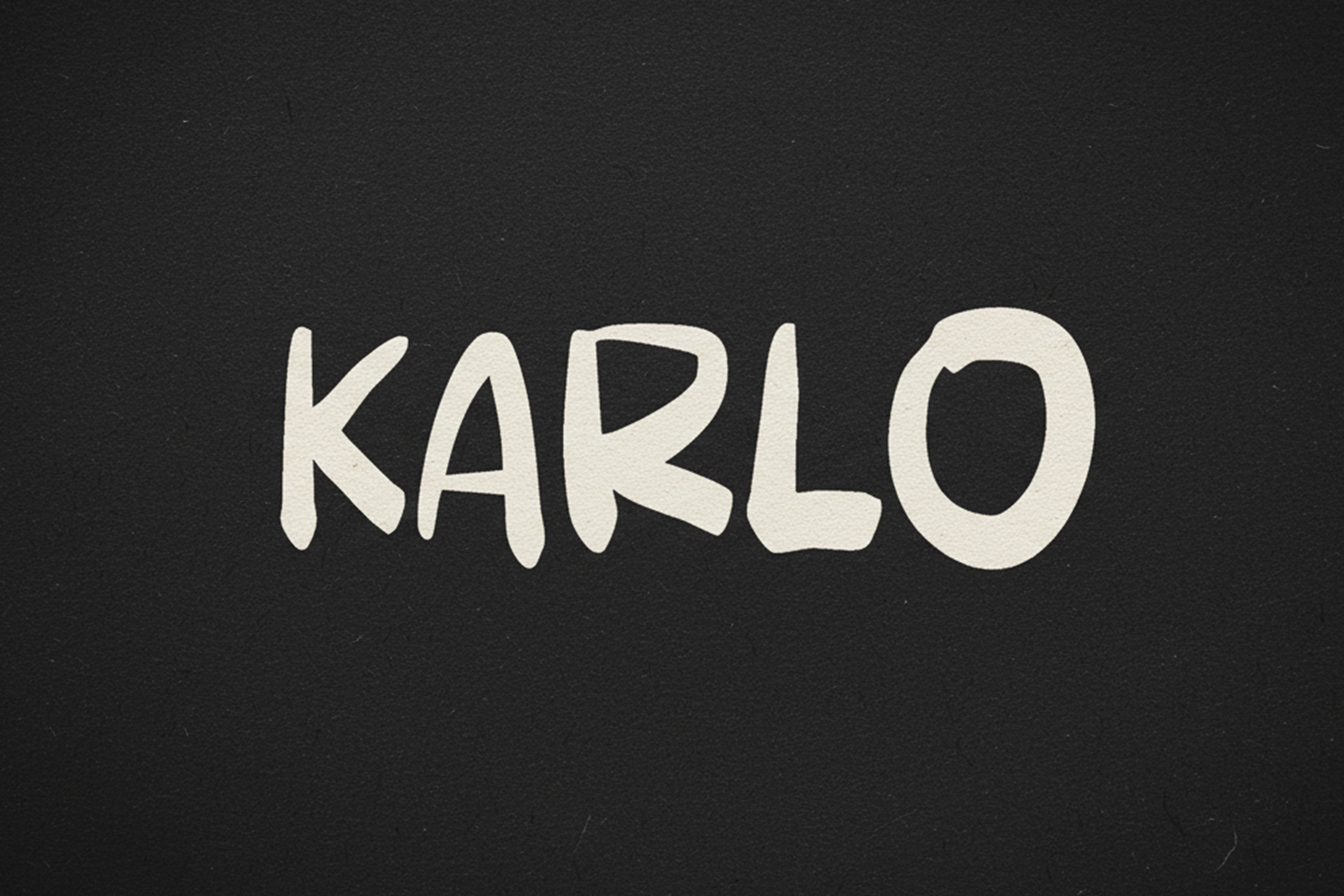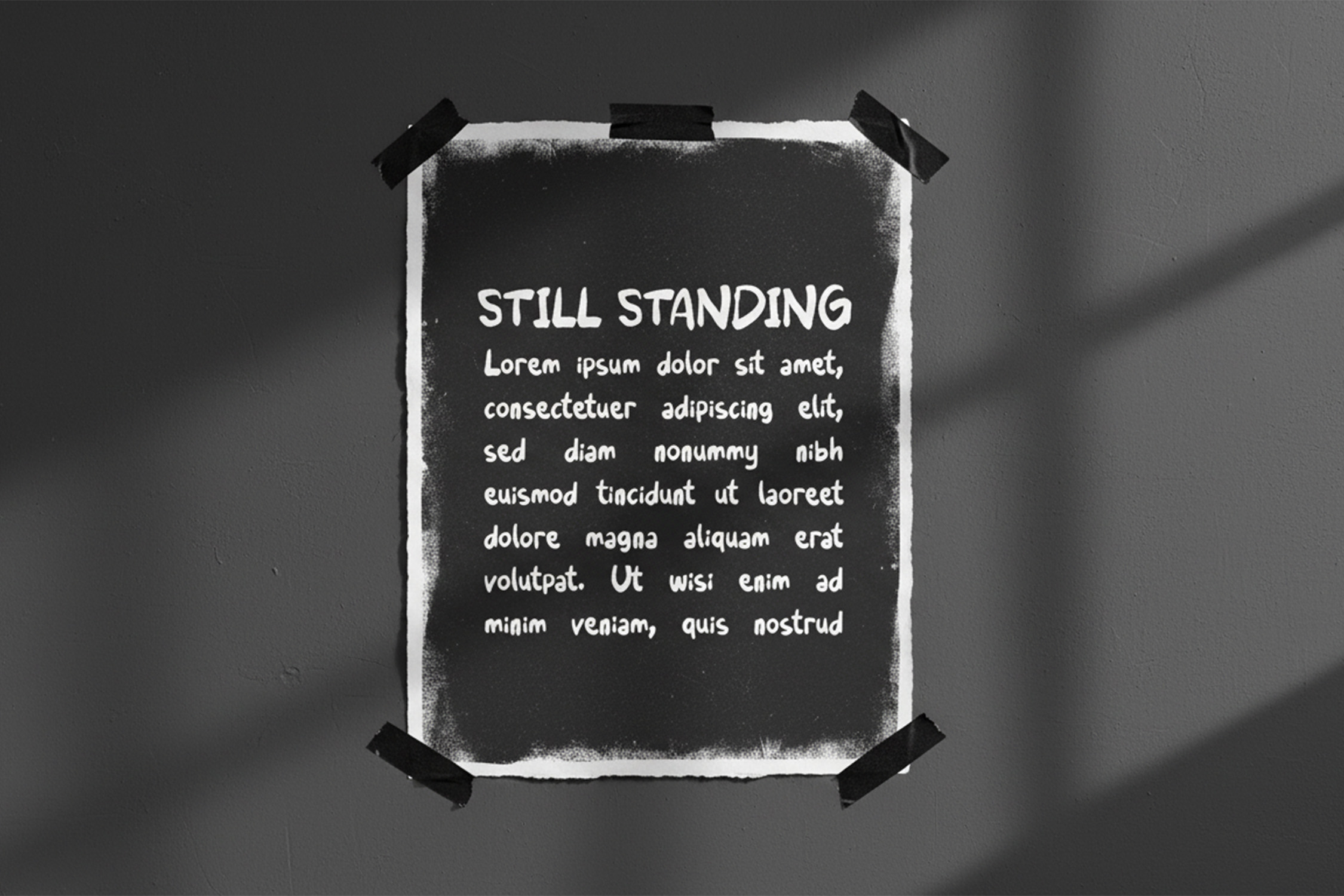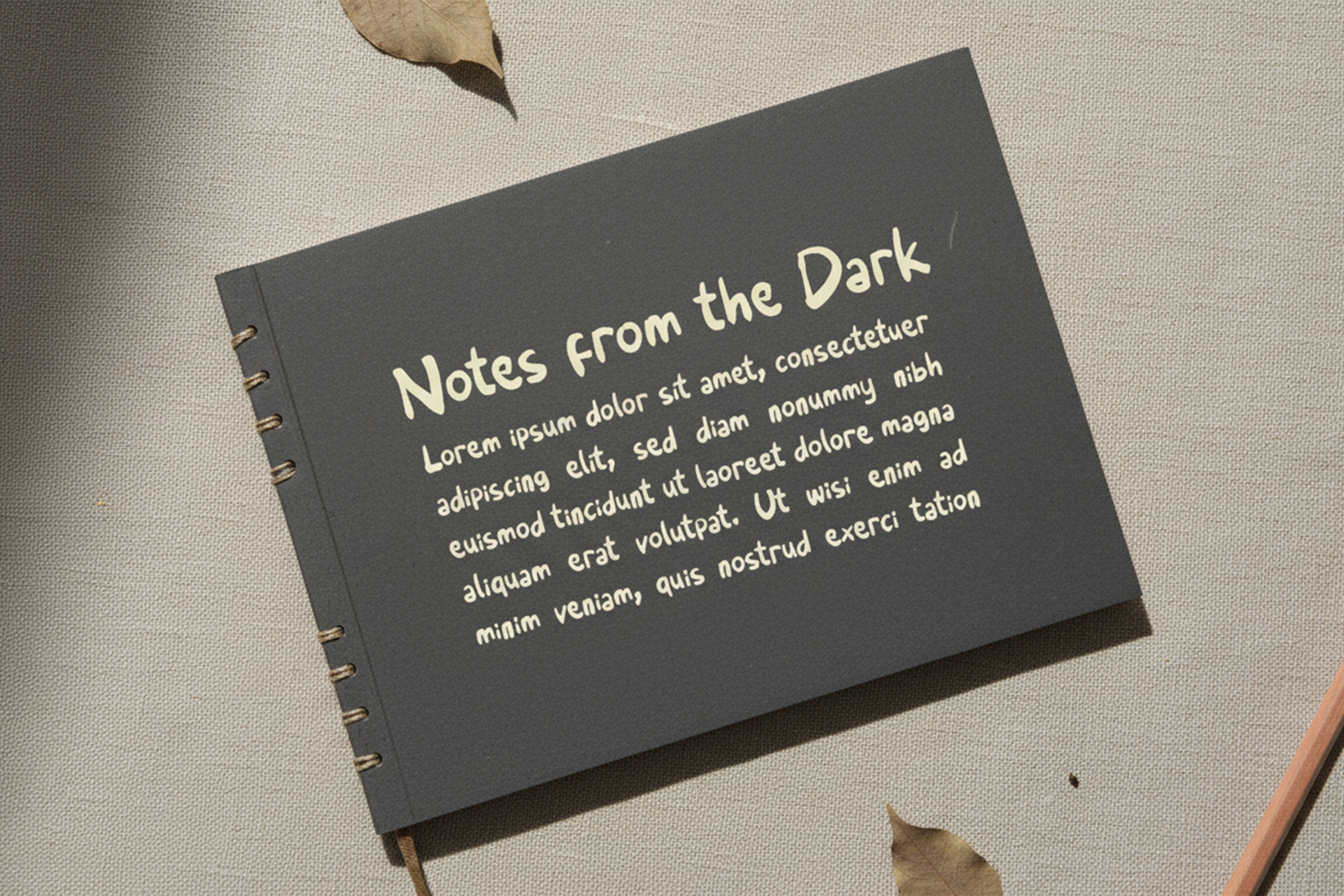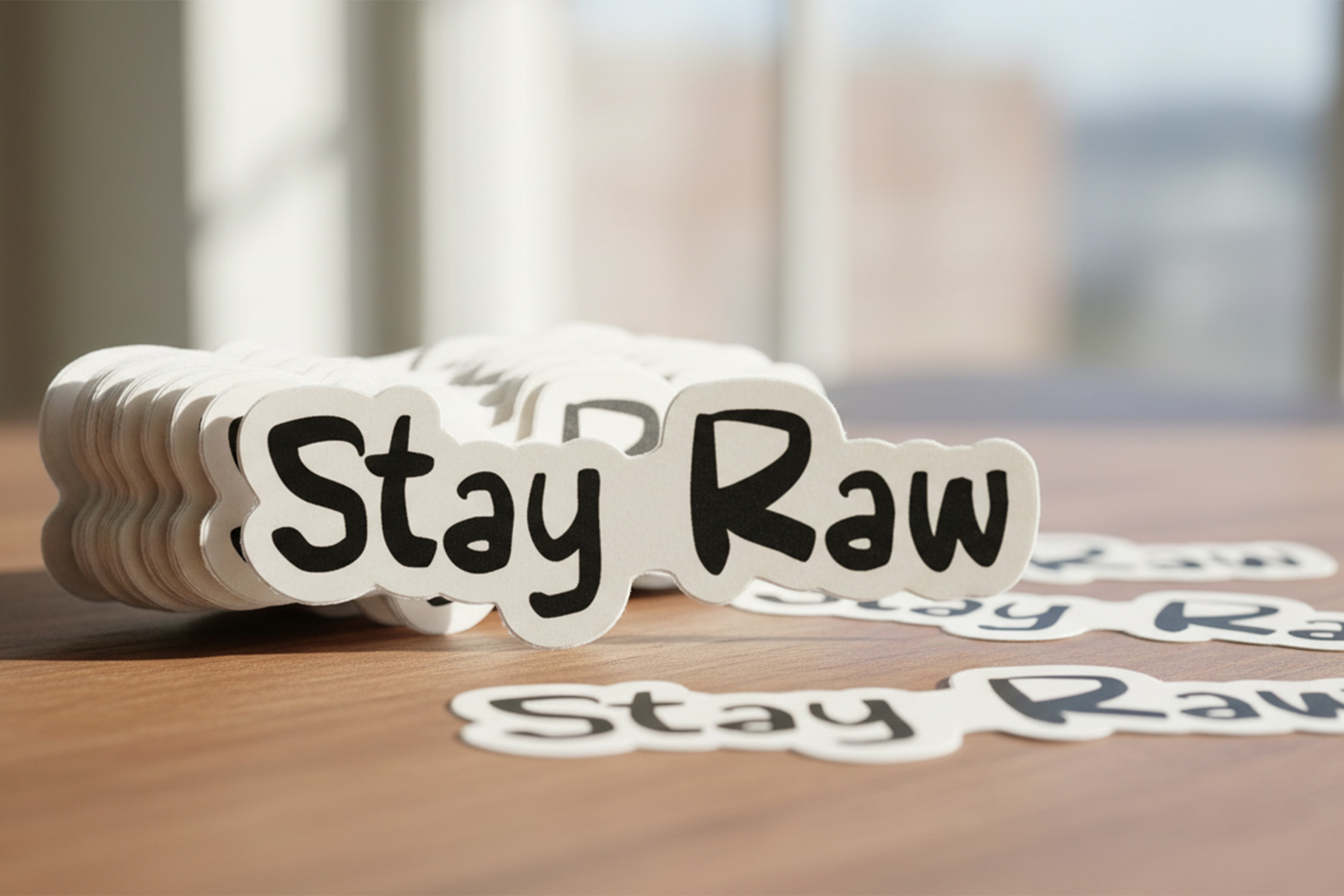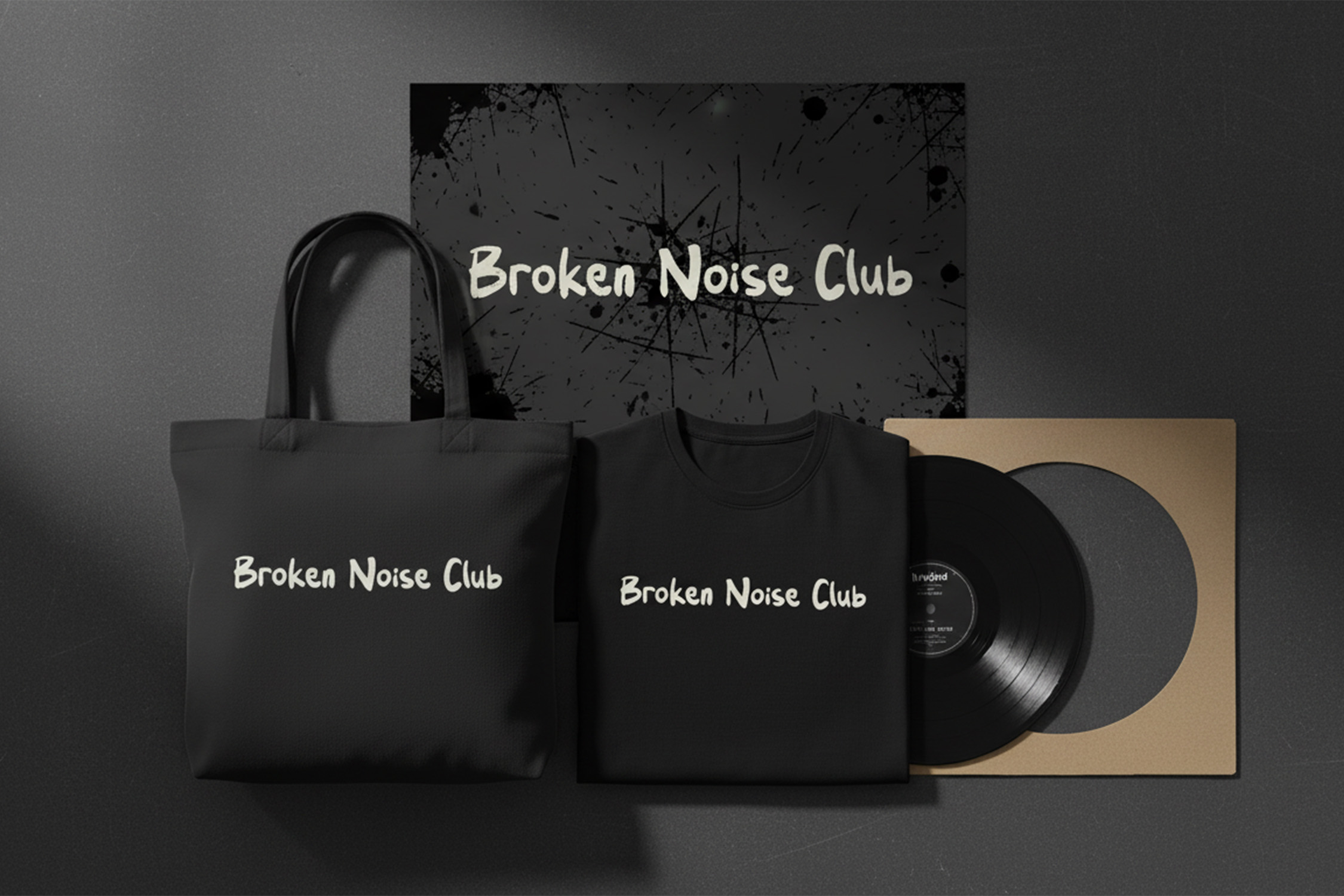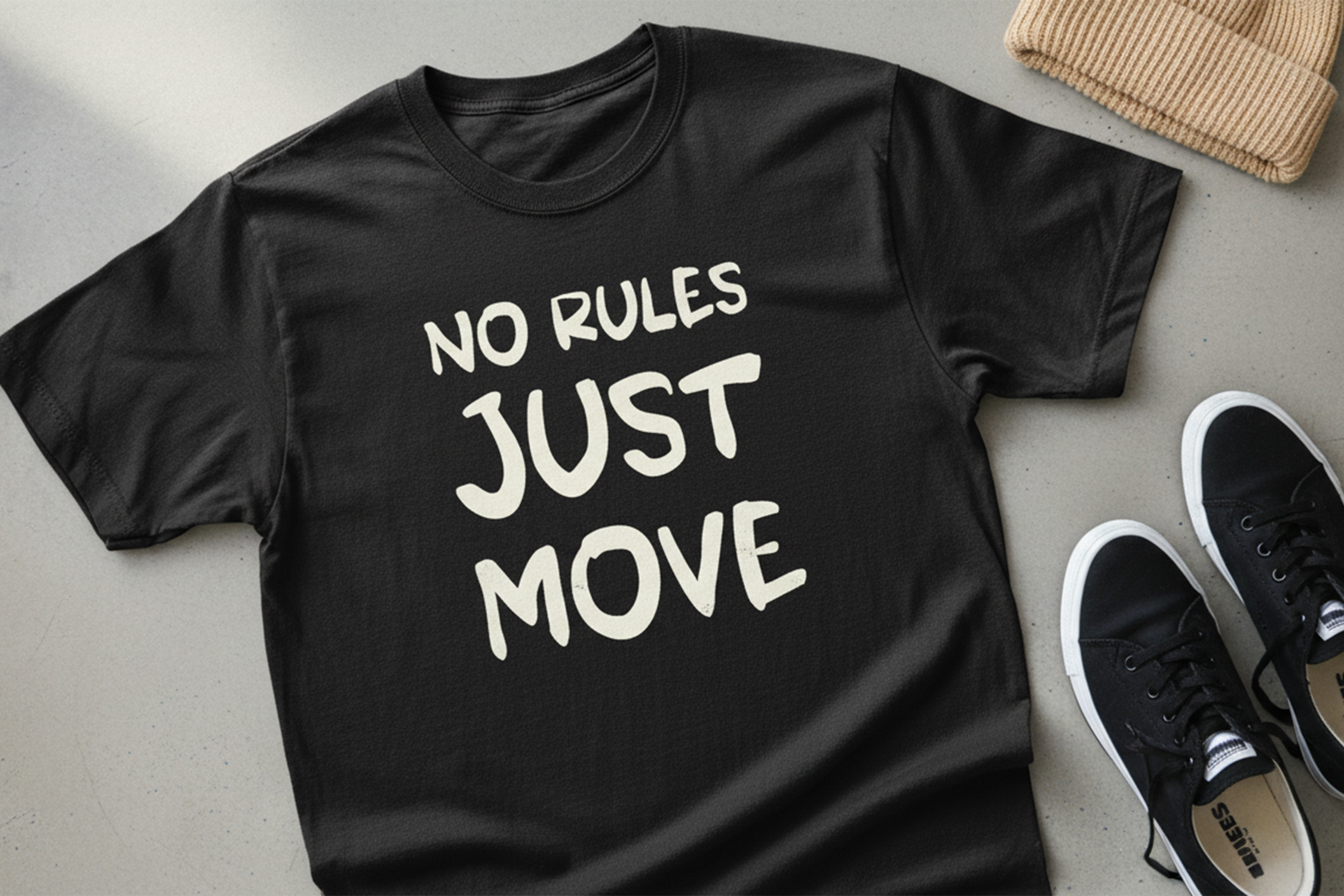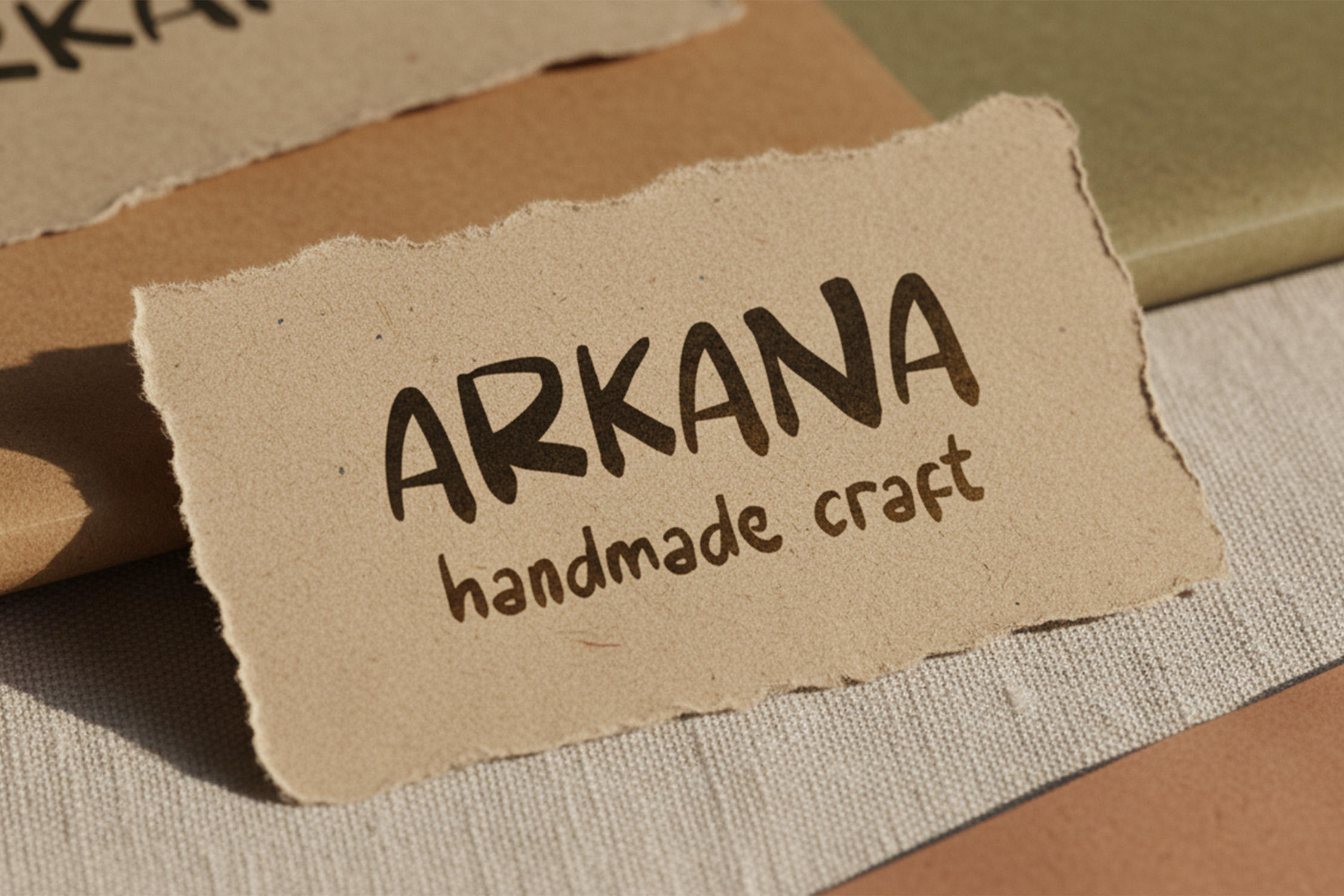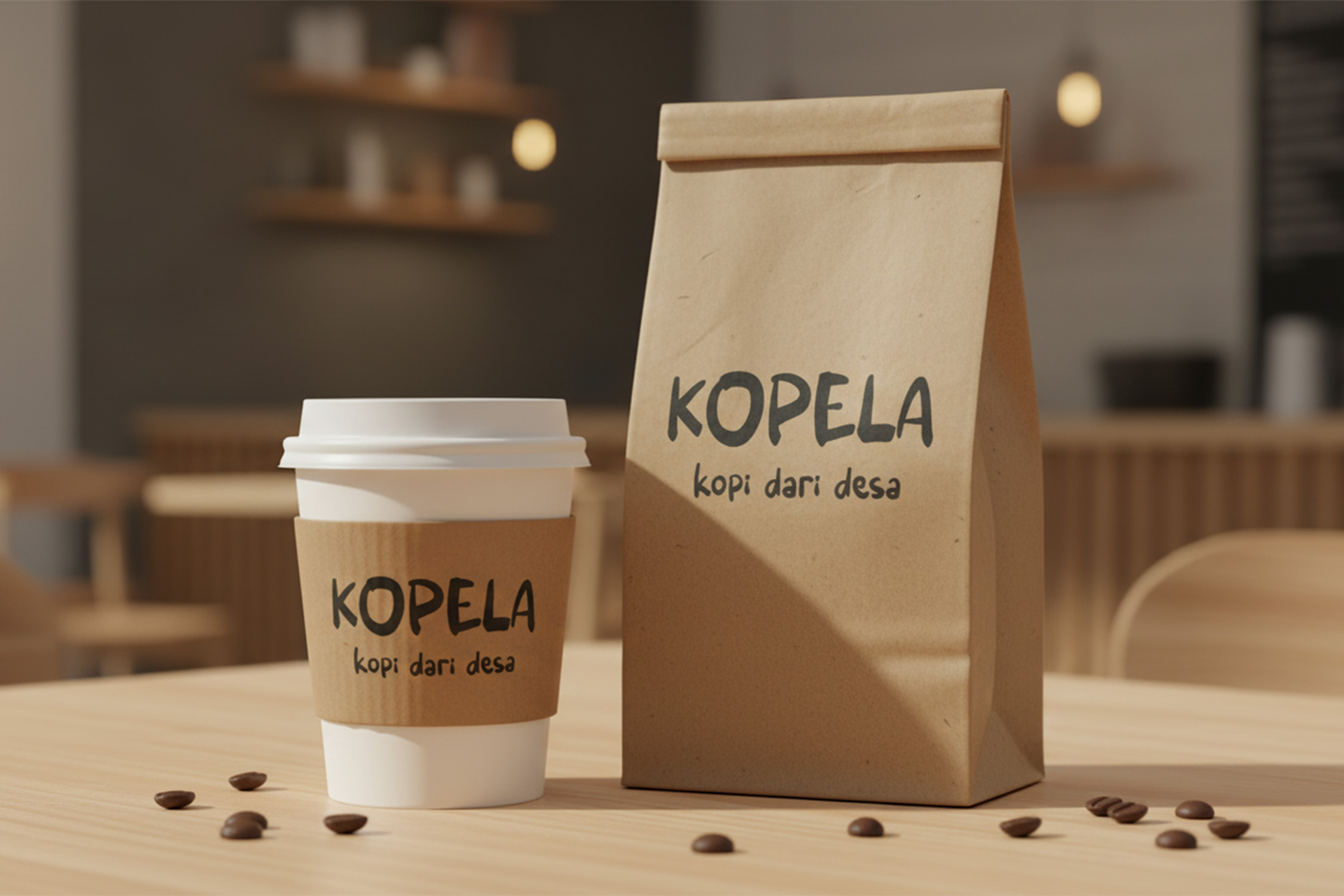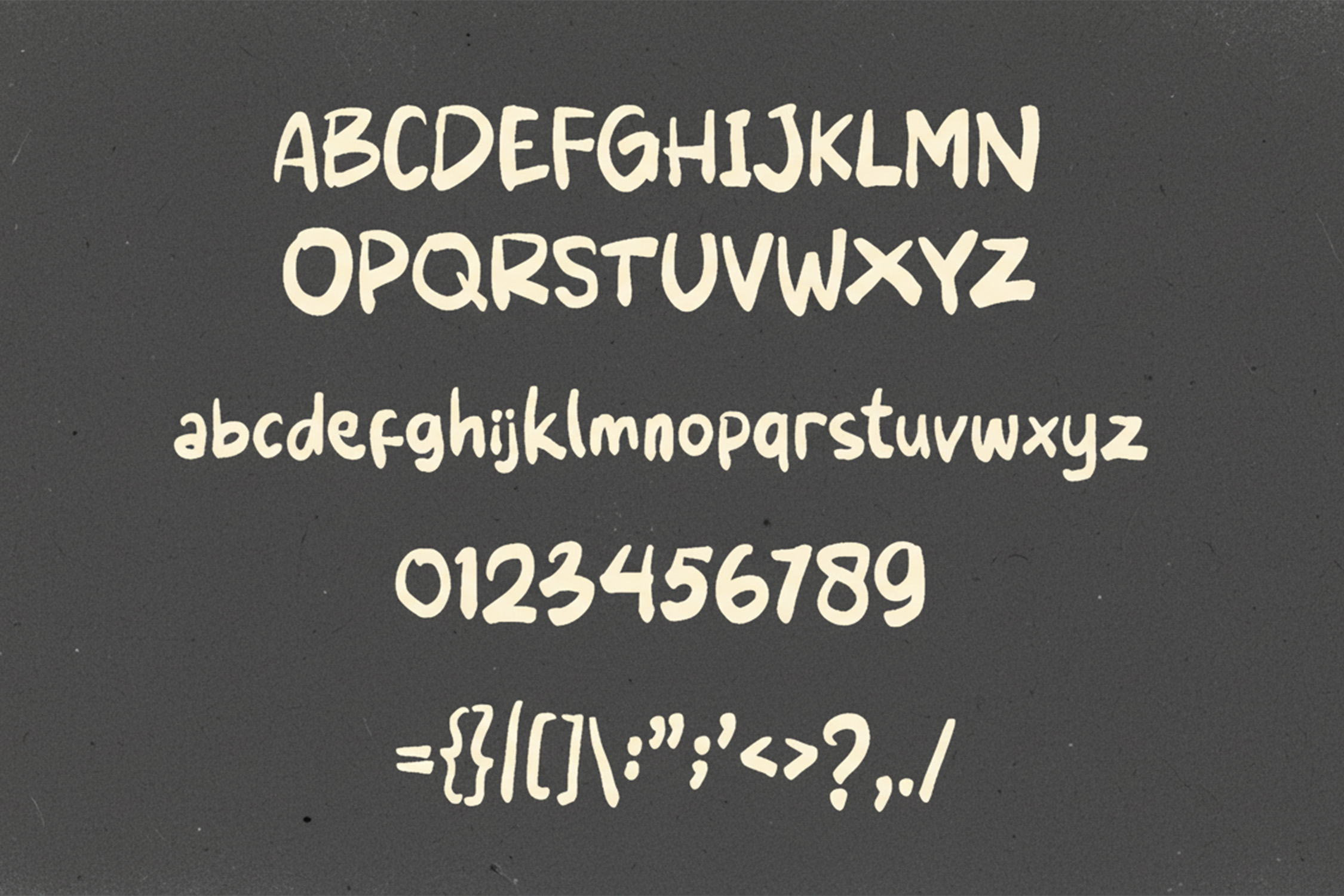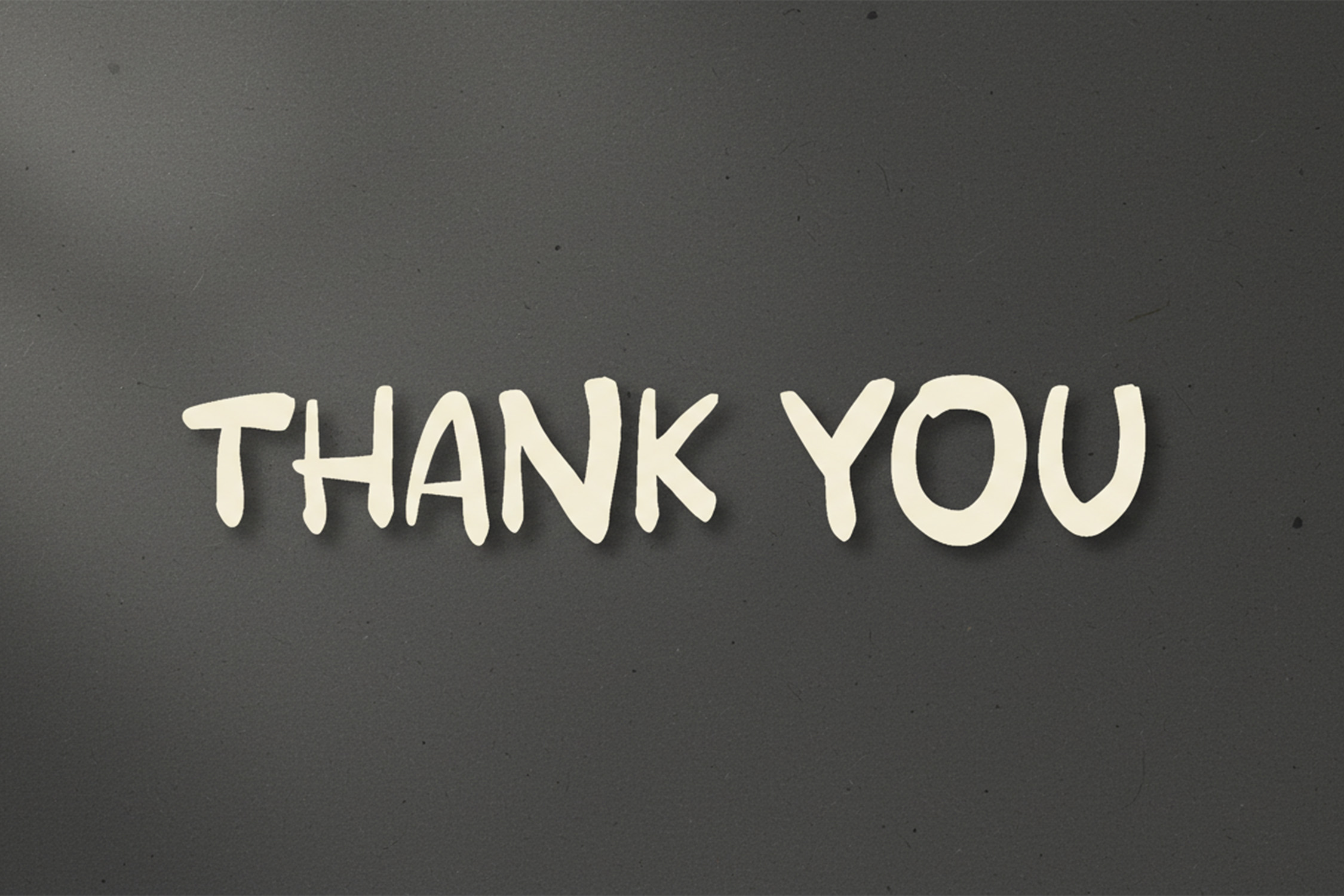
KARLO Handwritten Font is a bold, rough, and expressive handwritten typeface designed to bring raw personality and authenticity to your designs. Featuring imperfect strokes, natural texture, and an organic handwritten feel, KARLO is perfect for craft products, inspirational quotes, t-shirt designs, music merchandise, posters, and creative branding that needs a strong personal voice. Its rough character gives every word a handmade, honest, and artistic vibe—ideal for projects that want to feel human, emotional, and full of attitude. KARLO stands out especially well in apparel and merch designs, where character and uniqueness matter most.